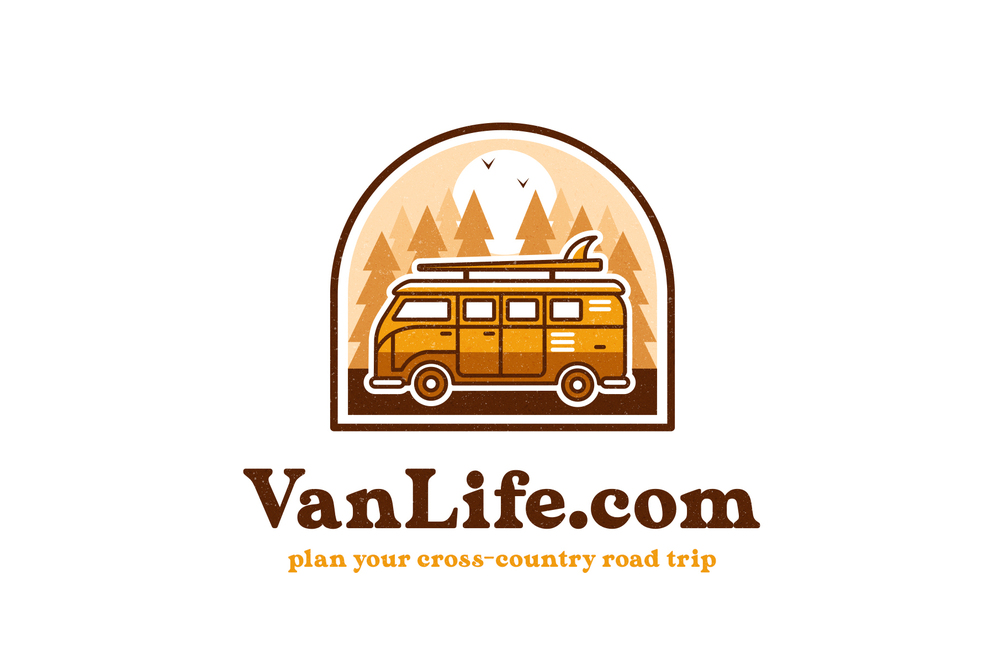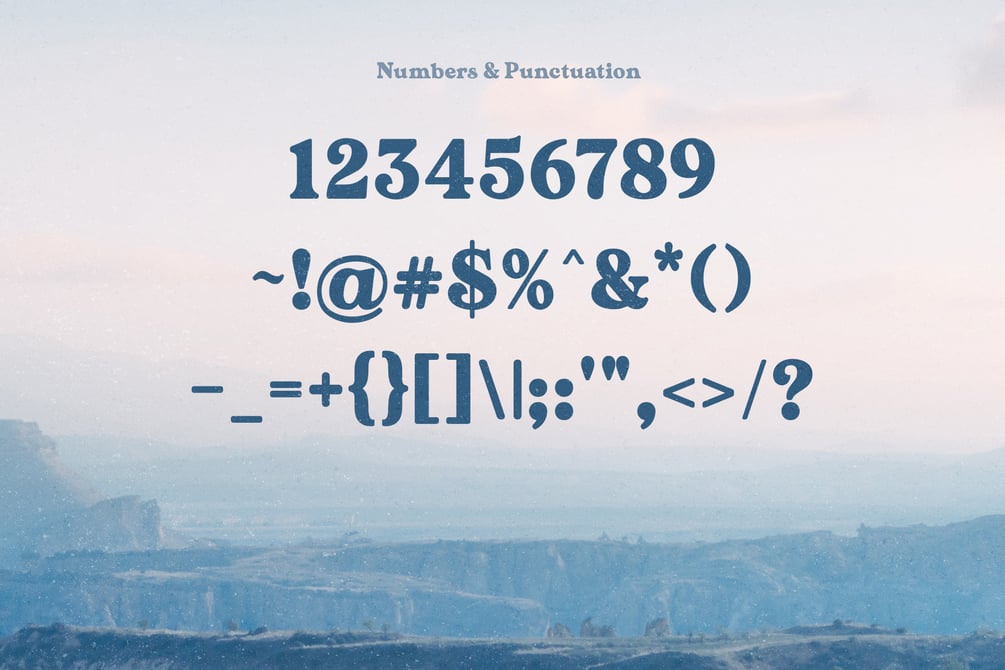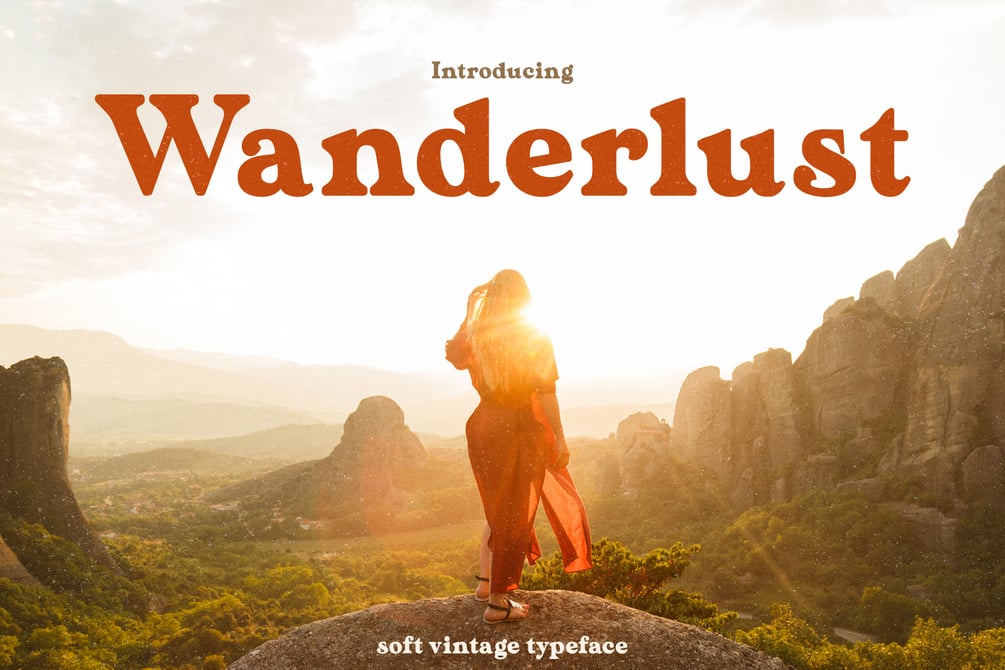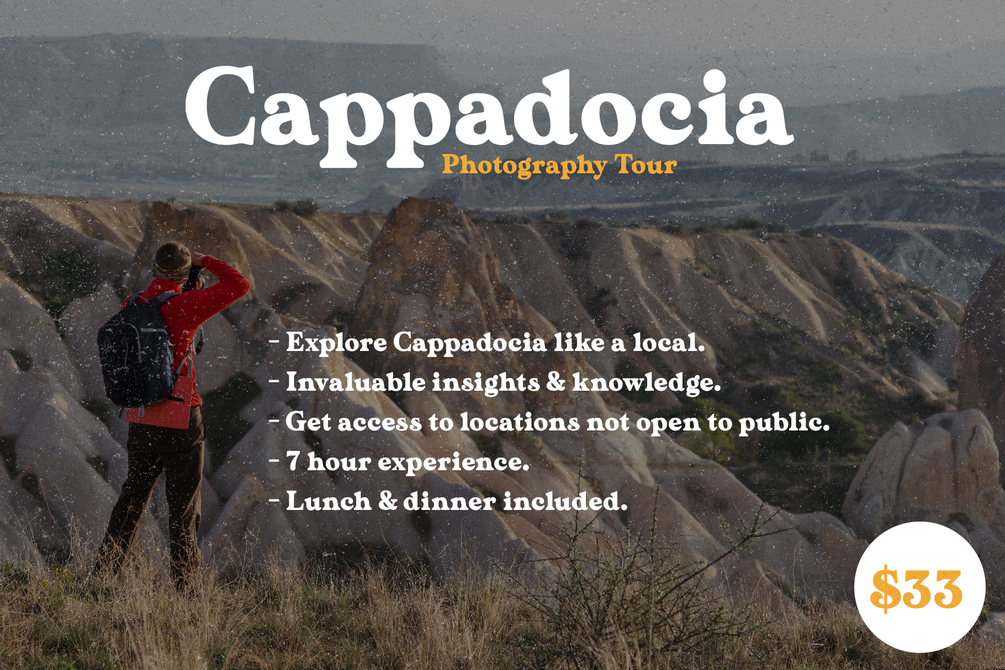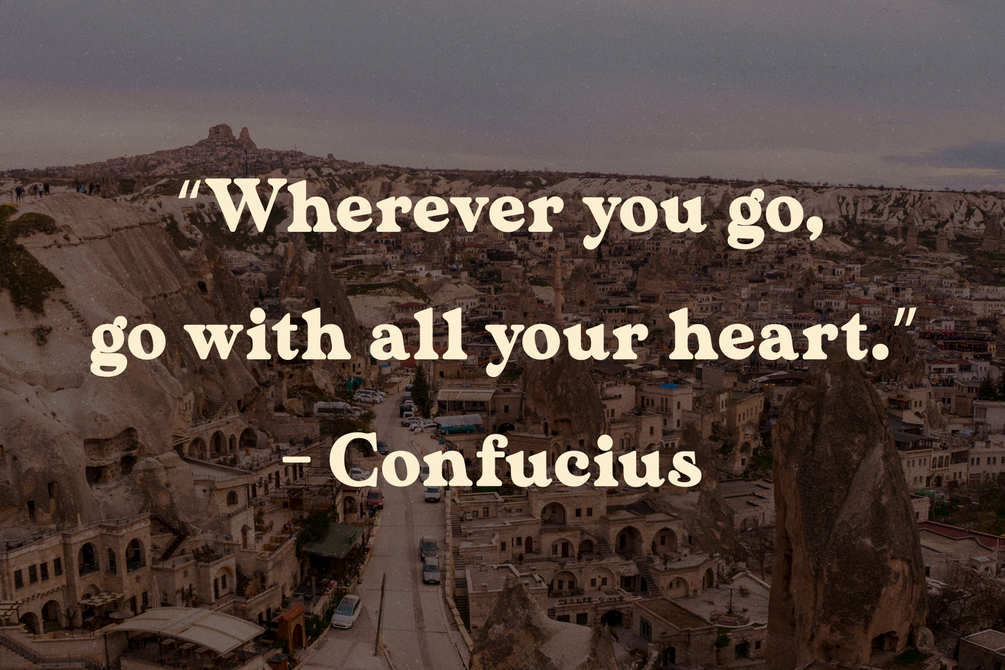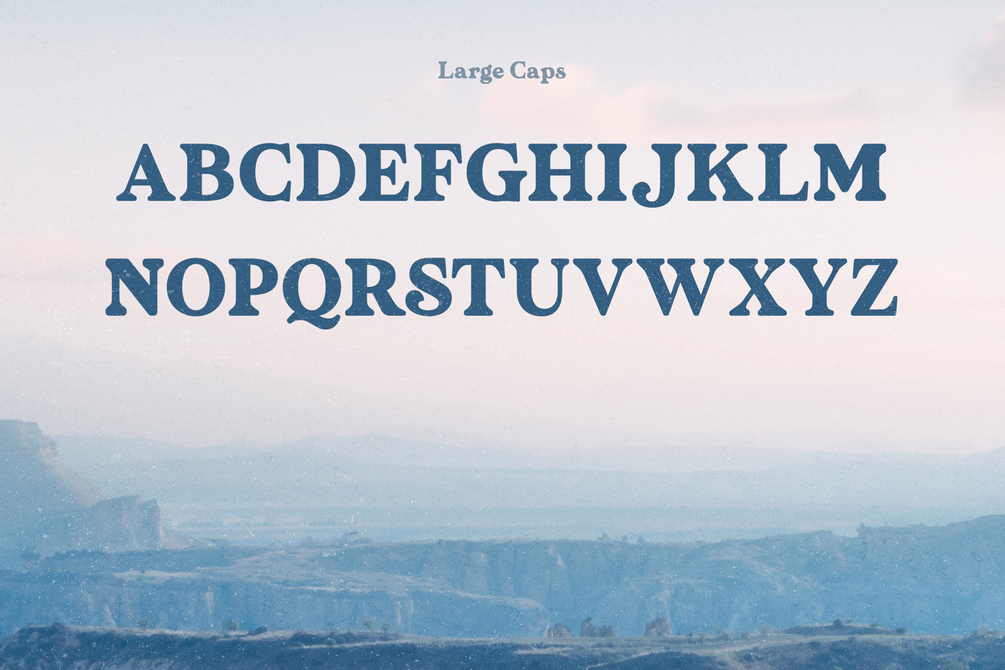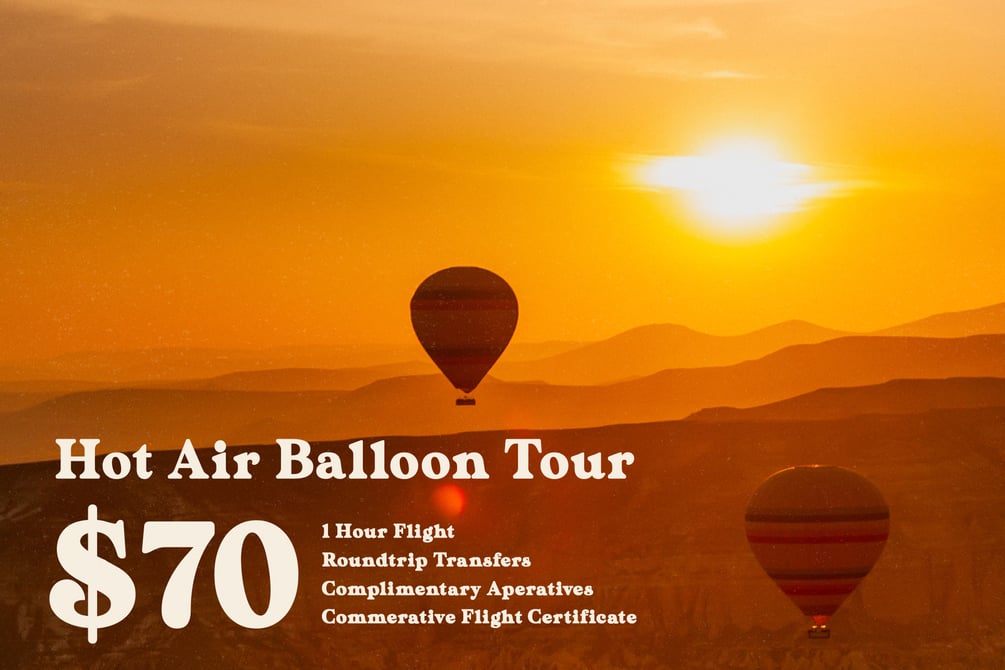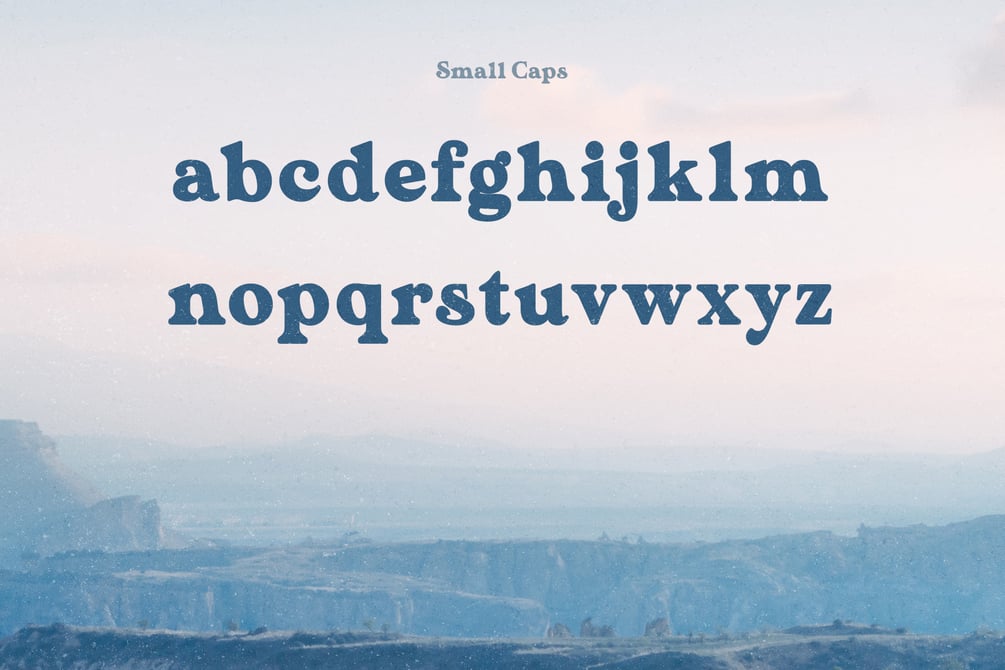
Wanderlust - Soft Vintage Typeface
Wanderlust is a beautiful vintage soft vintage typeface. Wanderlust is a very versatile font, covering a wide range project types, from wedding invitations, to bold magazine imagery, to branding, poster design and so much more.